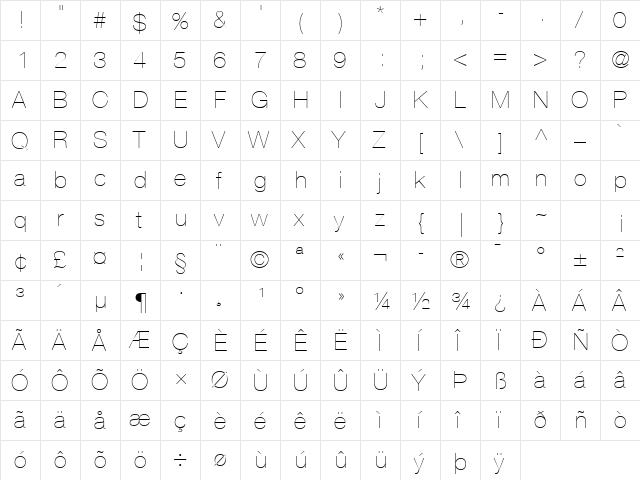
Helvetica Neue LT Com 25 Ultra Light
| Foundry | Linotype GmbH |
| Designer | Linotype Design Studio |
Design Context for Helvetica Neue LT Com Typeface
Helvetica Neue LT Com takes a measured approach to typography — its balanced proportions and neutral character make it a reliable workhorse for both digital and print work. Its slender proportions lend an understated elegance to any composition.
Pro Tip: Use Helvetica Neue LT Com in both headline and body roles to test its range before committing to a single application.